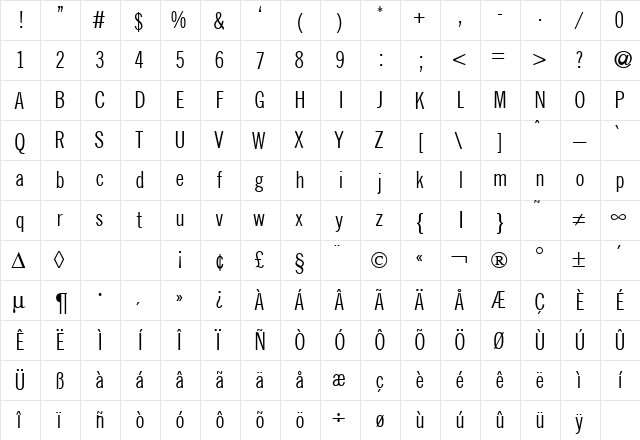
NewsGothicTwoCond Regular
Design Context for NewsGothicTwoCond Typeface
NewsGothicTwoCond takes a clean, functional approach — its unadorned letterforms prioritise legibility and work reliably across screen and print environments. Its narrow stance lets it pack a punch even in space-constrained designs.
Font Pairing: Works well alongside a characterful serif or display font that can carry the expressive load while NewsGothicTwoCond handles the functional copy.
Pro Tip: Use NewsGothicTwoCond tightly set in headlines and banners — its condensed proportions make it ideal for maximum impact in minimum horizontal space.